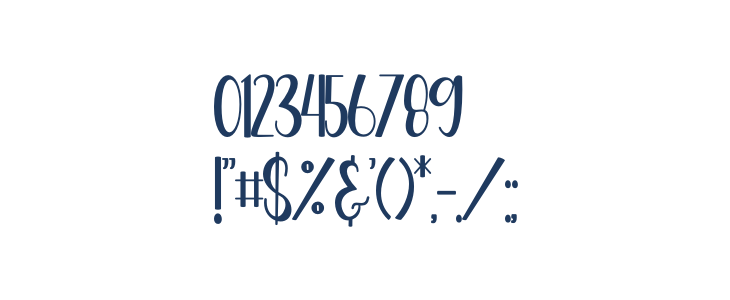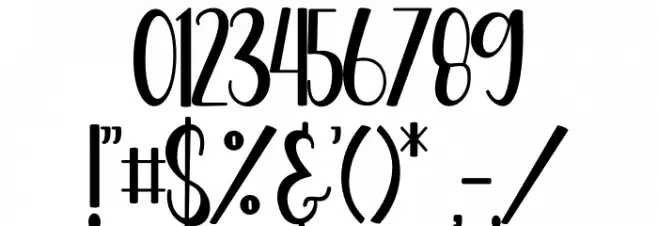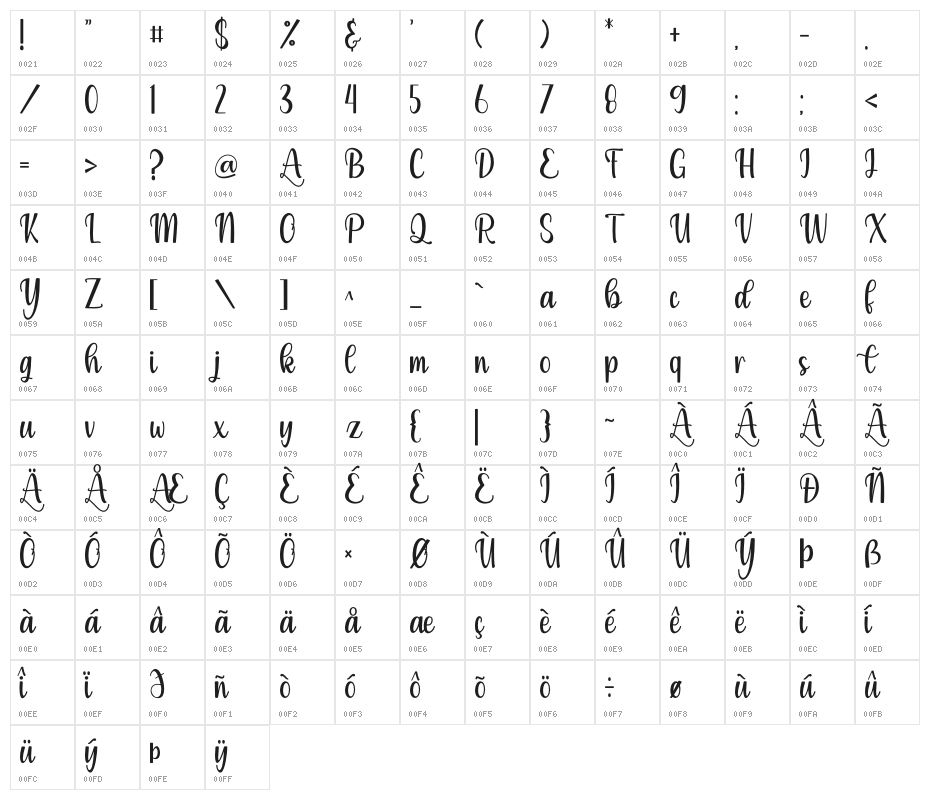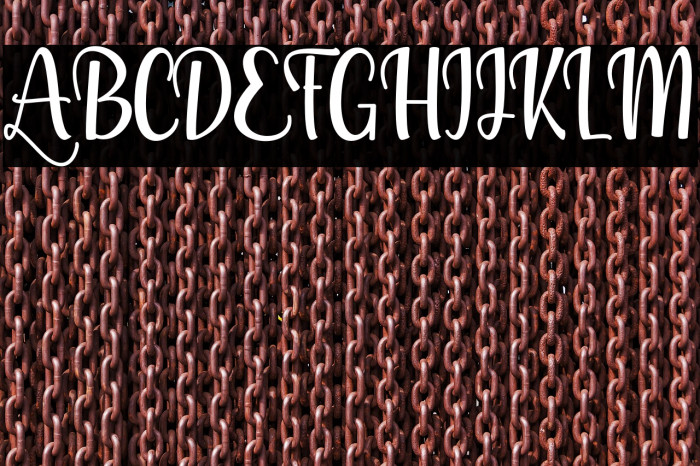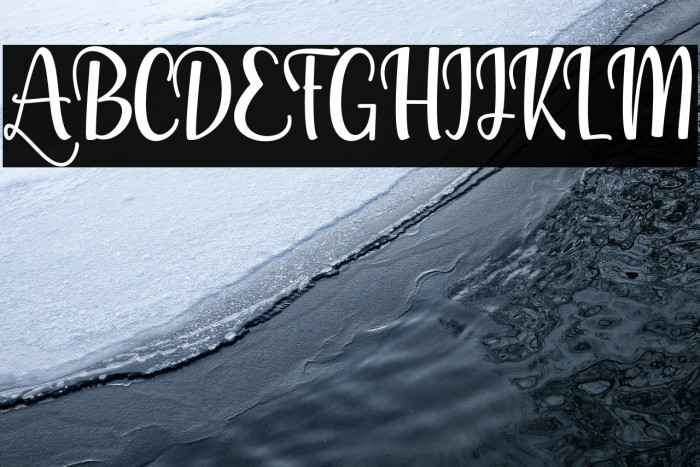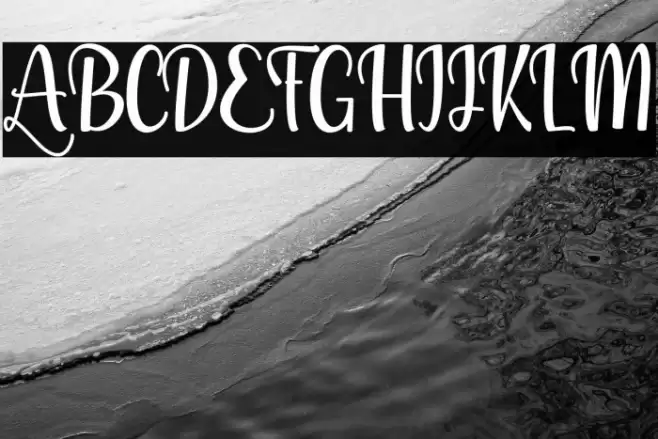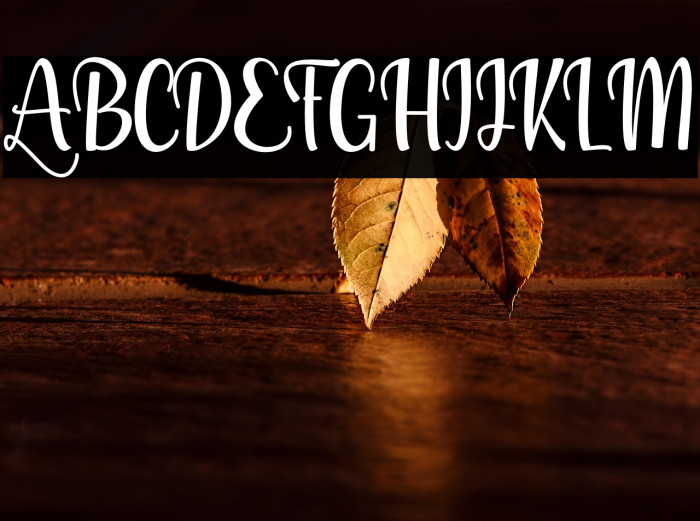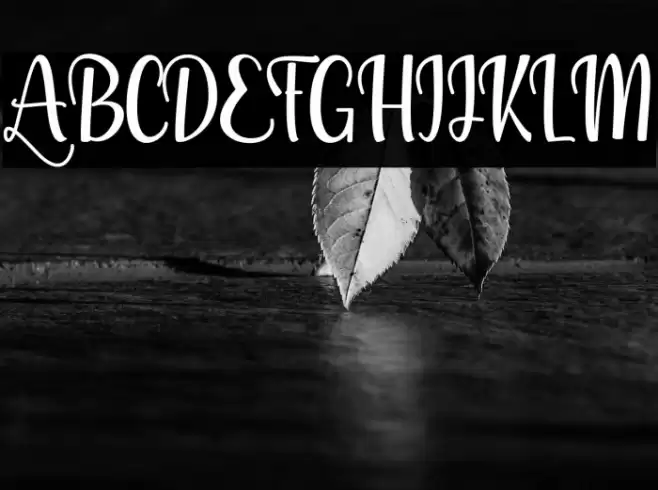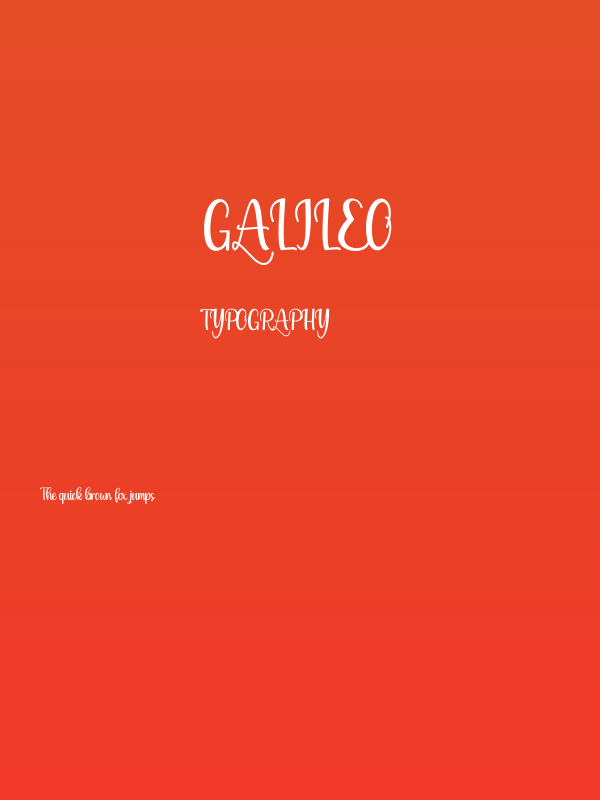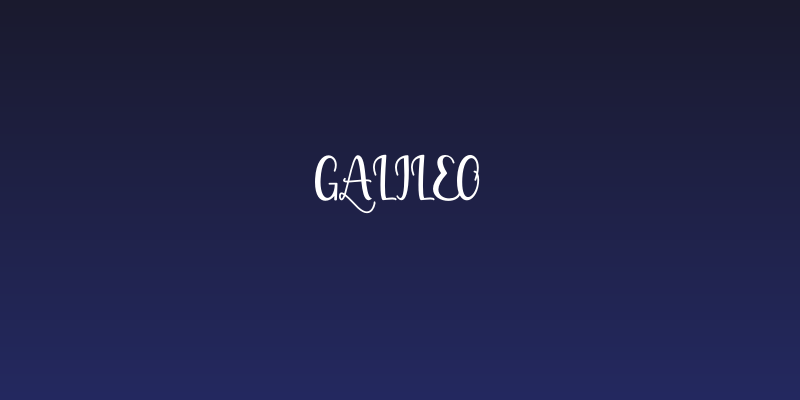
Galileo Font
Galileo Description
This font features a lively and expressive script style with a playful and dynamic appearance. The uppercase letters are bold and slightly slanted, giving a sense of movement and energy. The lowercase letters maintain a consistent flow with smooth curves and loops, adding a touch of elegance. The numerals are clear and distinct, matching the overall style with a slight slant. Special characters are creatively designed, maintaining the font's whimsical and artistic flair. The font's unique character makes it suitable for projects that require a personal and artistic touch.
| Proposed Projects | Ideal for greeting cards, invitations, branding, and creative projects that require a personal touch. |